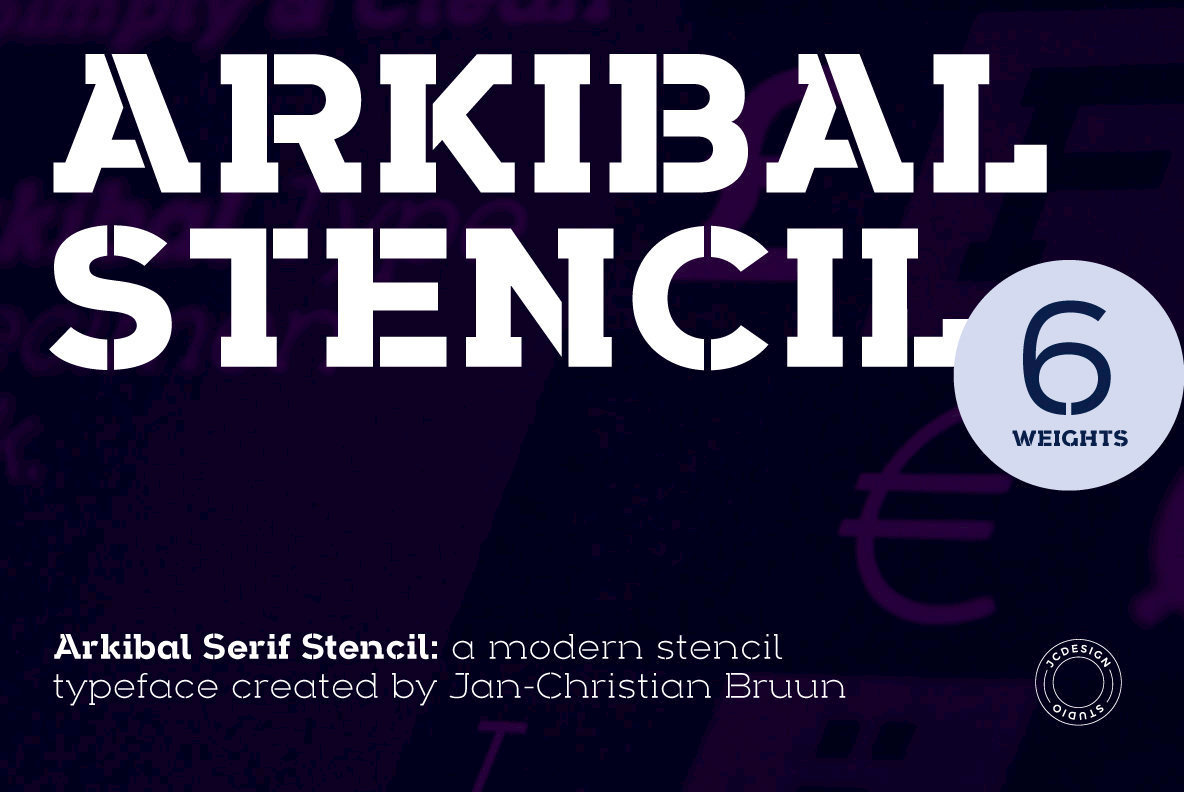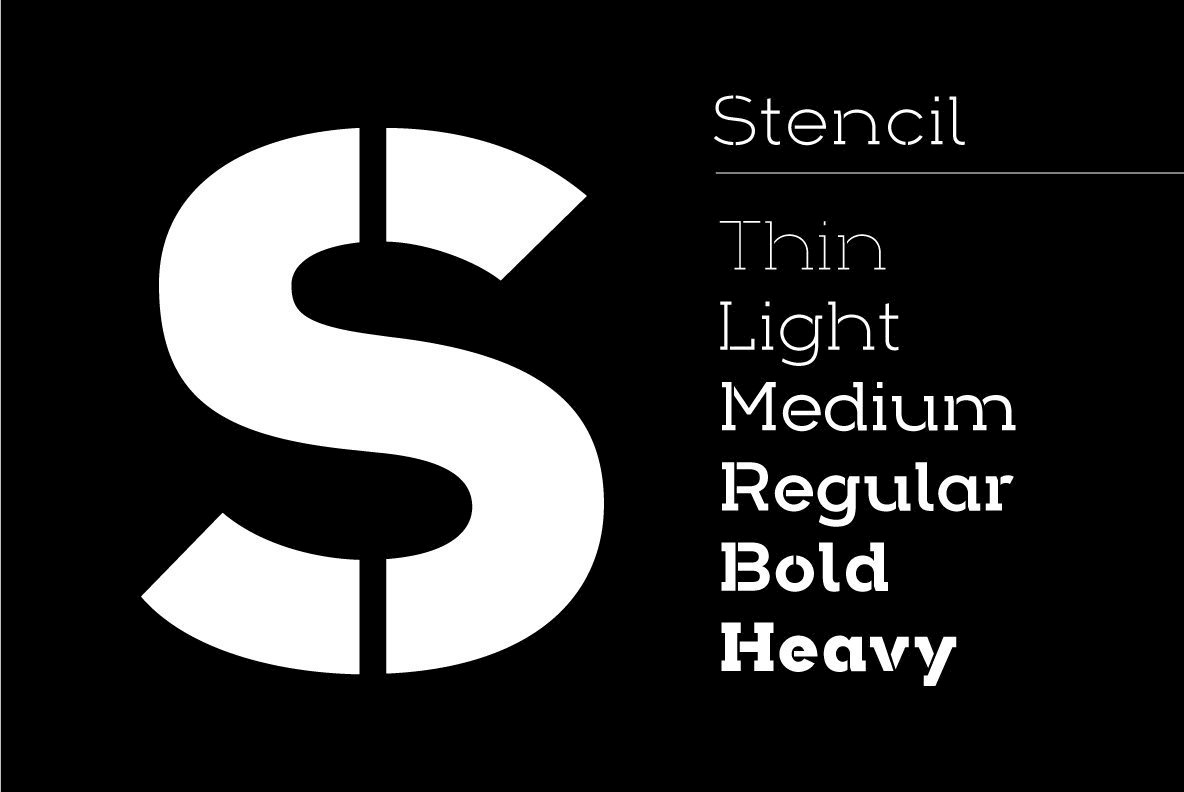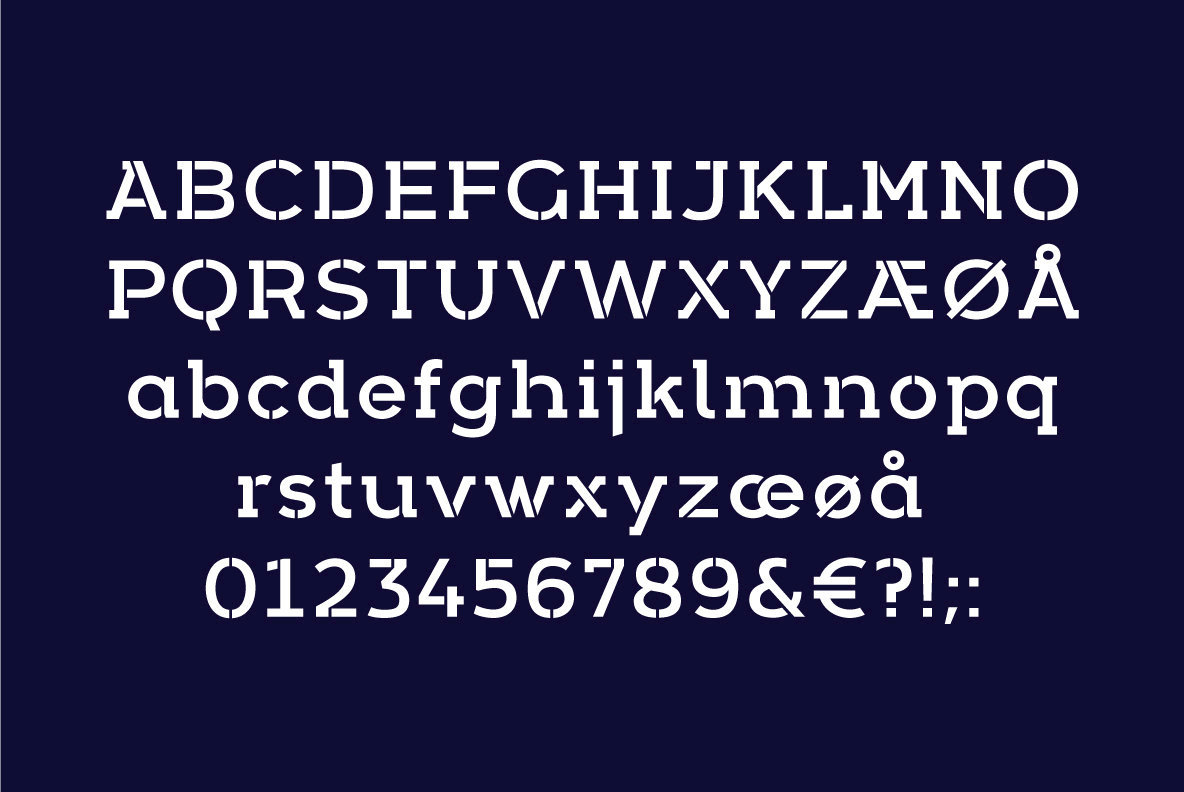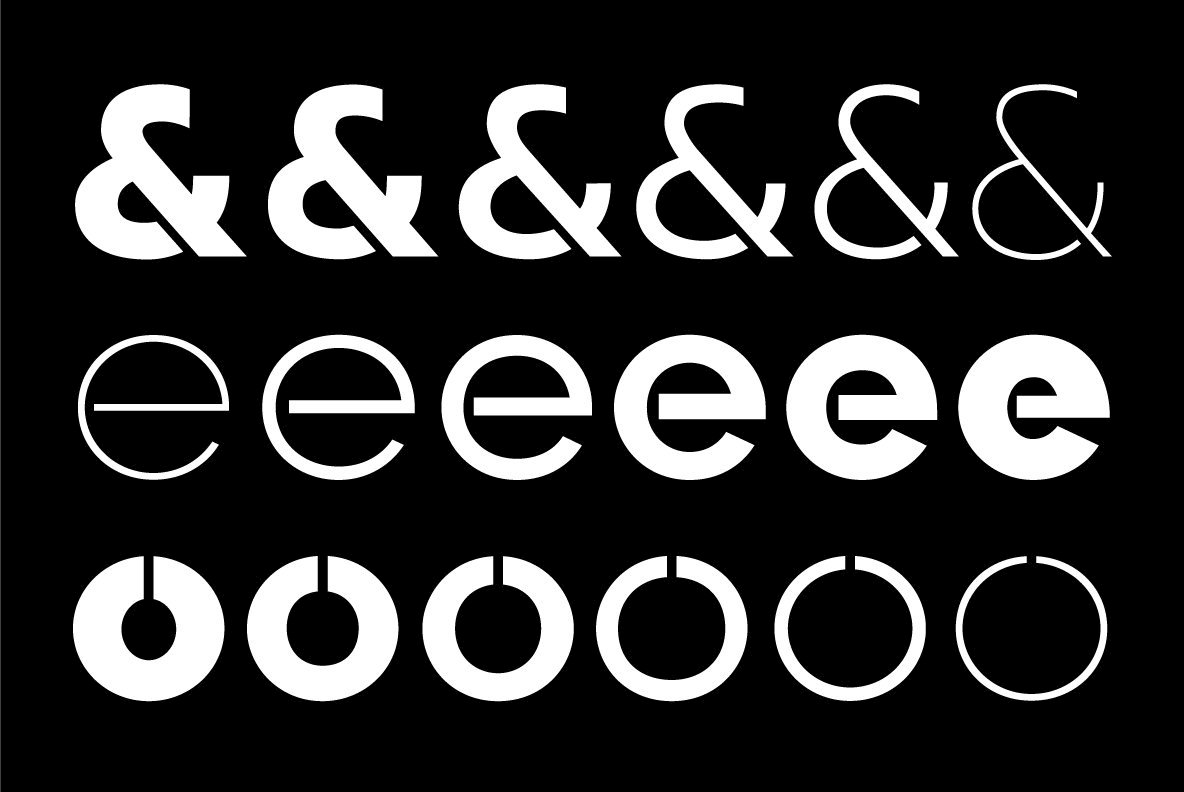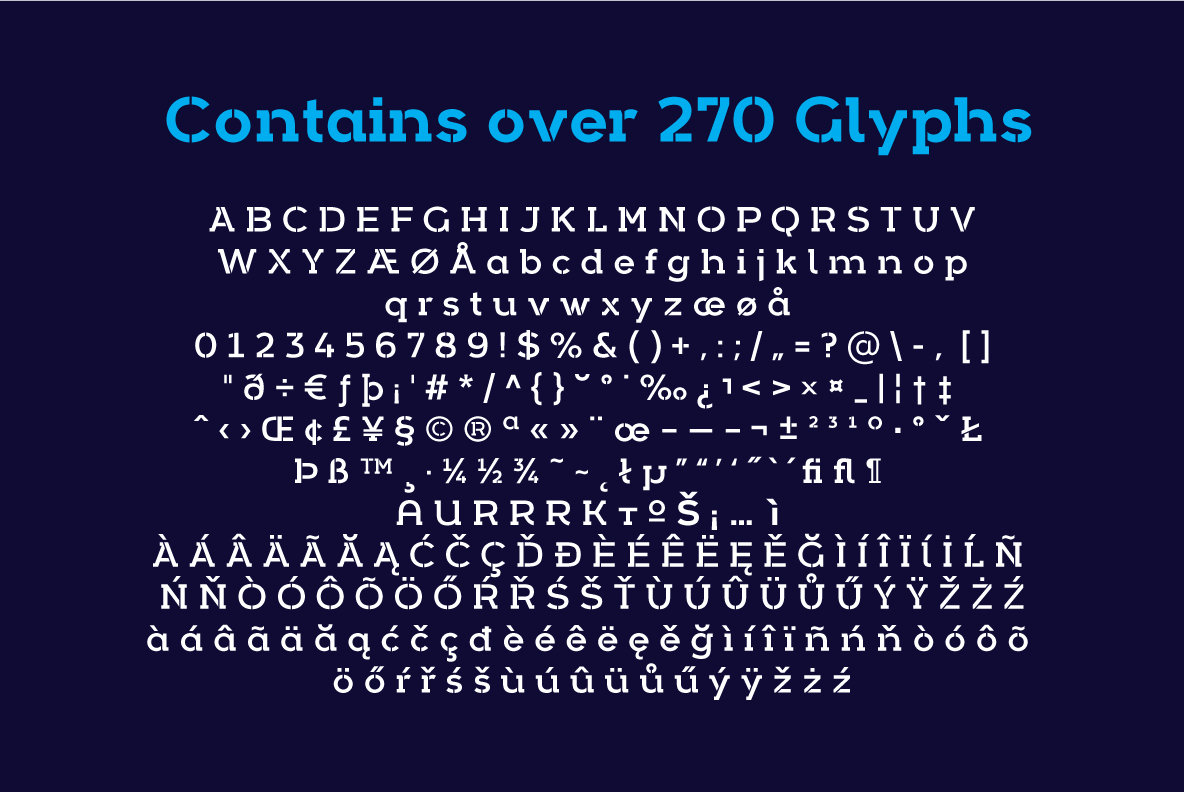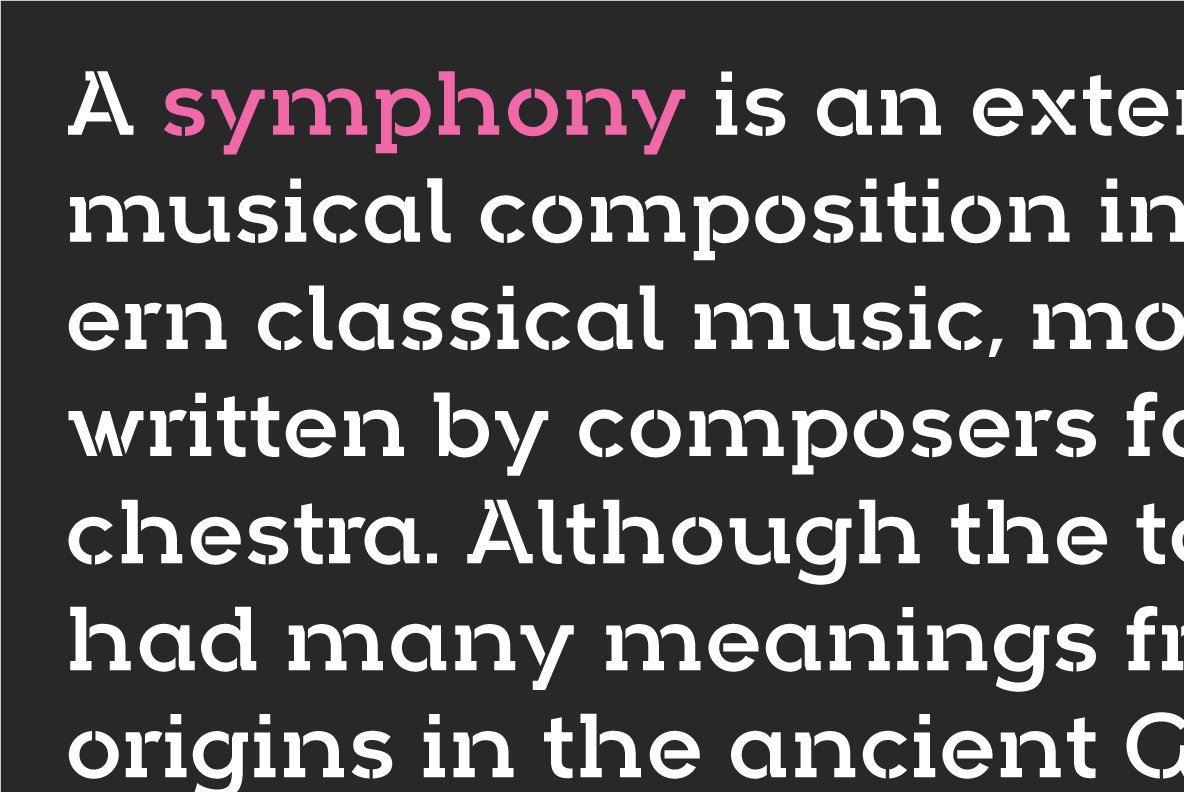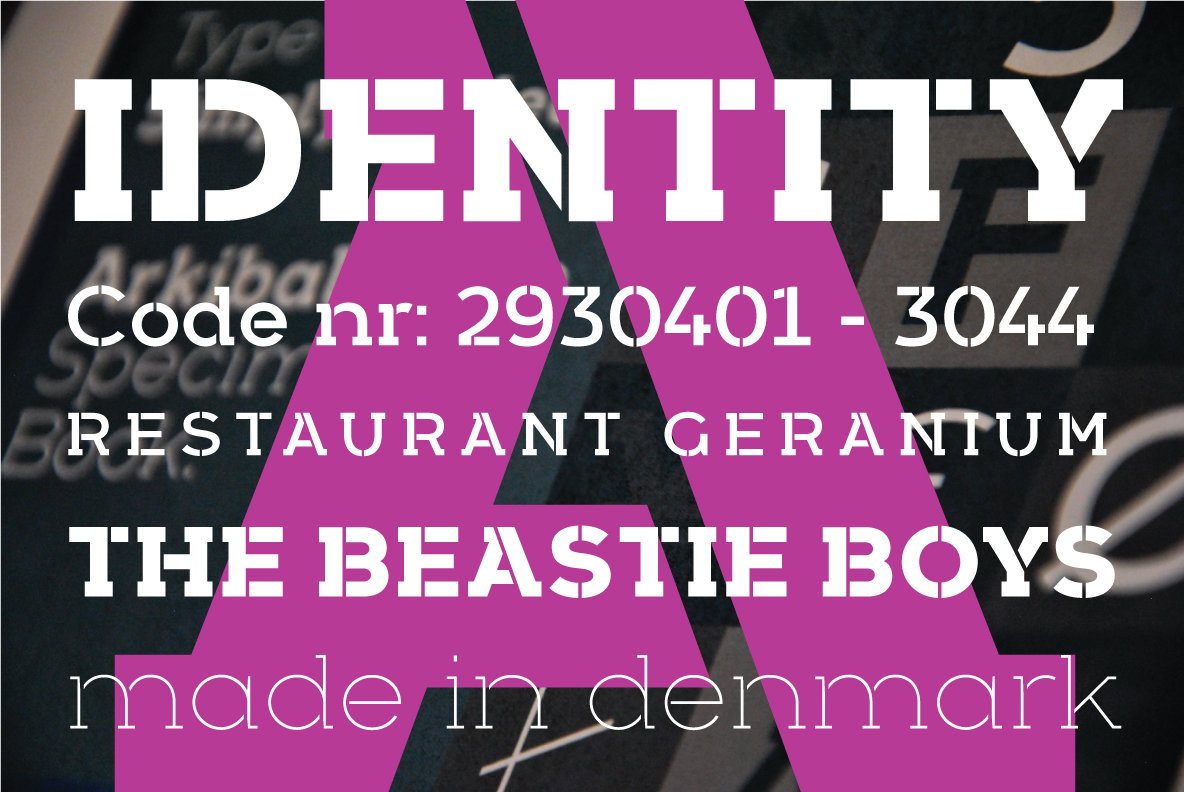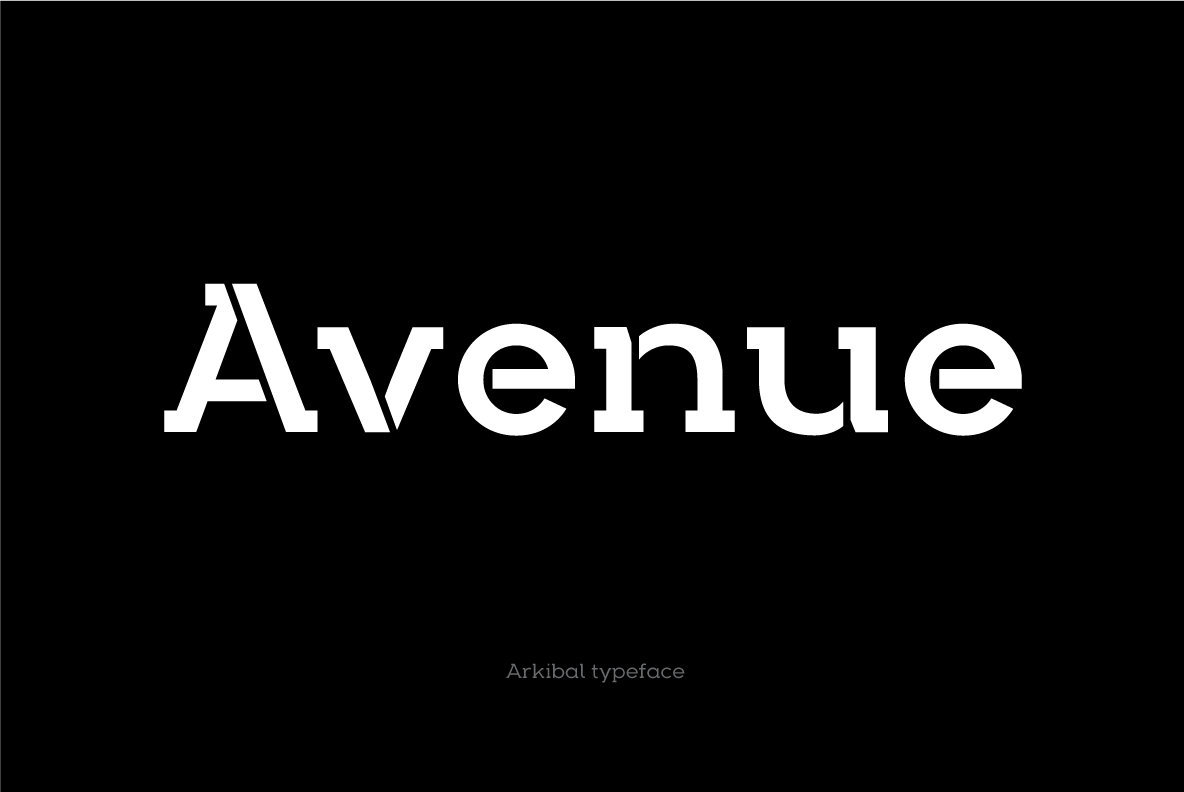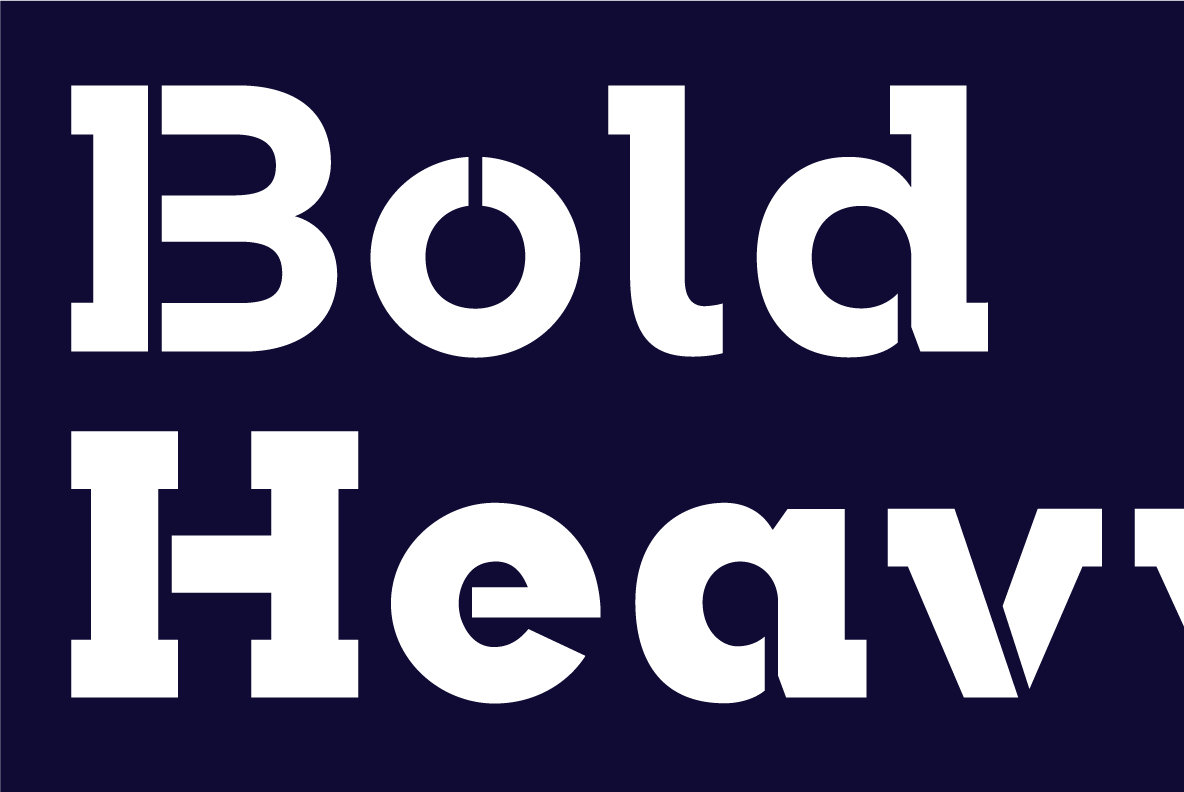
Arkibal Serif Stencil Font
The inspiration comes from some old documents and store signs from my great-grandfather’s old gold list factory from 1838. He delivered hits for many artists of that time, and various museums in Copenhagen. I priority increases to make a mixture of the classic letter with a modern lift. And this contain also a serif og display version.
Seems it was interesting to try to reproduce some of the old characters and make a new font. Uppercase “G” was the first letter of the starting point. G stands for in danish “Guldramme”, which means “Gold frame”. Arkibal is coming from an almost old danish traditional name “Arkibald”, only without “d”.
I´m Jan-Christian Bruun, and I working as a Graphic Designer based in Lyngby, Denmark. I have my own independent design studio JC Design. Im specializing in font-design.